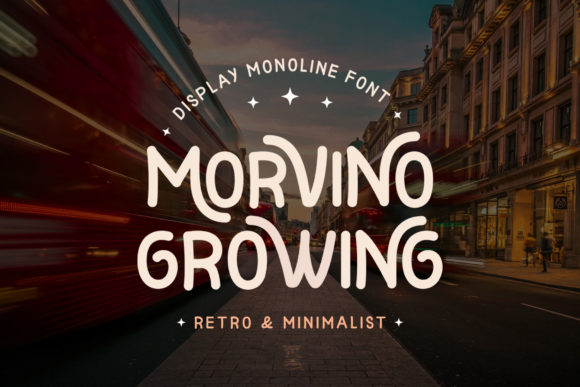
Introducing Morvino Growing, the best font for LED display you'll ever find! This font is not just any ordinary font - it is a display font that exudes a retro vibe and a relaxed feel. Created by Graphicxell, it is designed to bring your crafting ideas to life, and it is a versatile font that will make your cards, branding, and labels stand out from the rest.
Morvino Growing is more than just a font - it is a creative tool that will take your designs to the next level. With its captivating vintage appeal, it will evoke emotions of nostalgia, warmth, and charm that will resonate with your audience. Whether you are designing for a retro-themed event or just looking to add a touch of personality to your project, Morvino Growing will not disappoint.
This font is perfect for those who want to make a statement with their design work. It is an excellent choice for those who want to communicate their message in a unique and creative way. With its bold and striking appearance, Morvino Growing will leave a lasting impression on anyone who lays eyes on it.
If you are looking for a font that is both distinctive and versatile, Morvino Growing is the font for you. It is an excellent choice for anyone looking to add character and personality to their project. Don't settle for anything less than the best - choose Morvino Growing and take your designs to the next level!